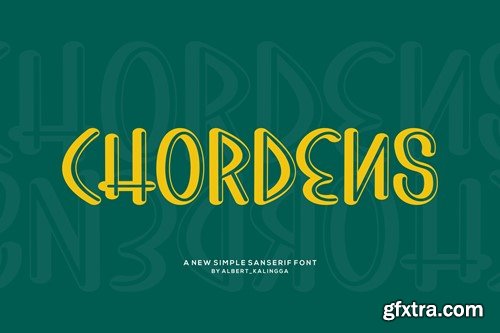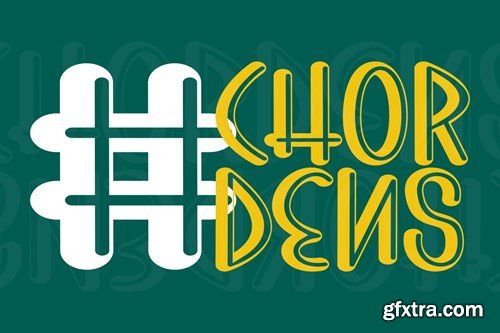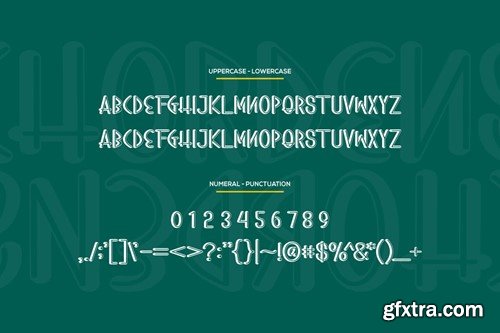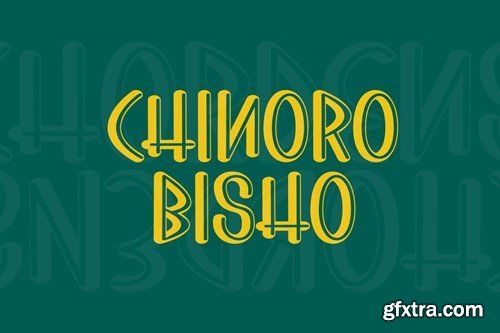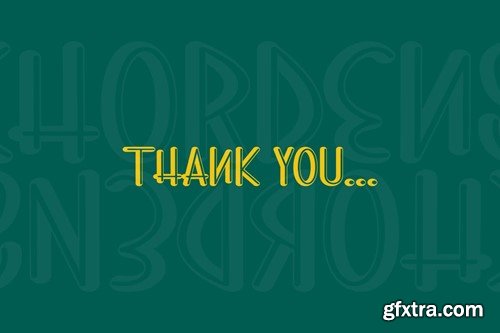
Chordens Font
Introducing our new product Chordens Font - Modern Font is a bold and authentic display font. The font is suitable for any branding project like logo, esport, and many more. outstanding in a wide range of contexts. availlable